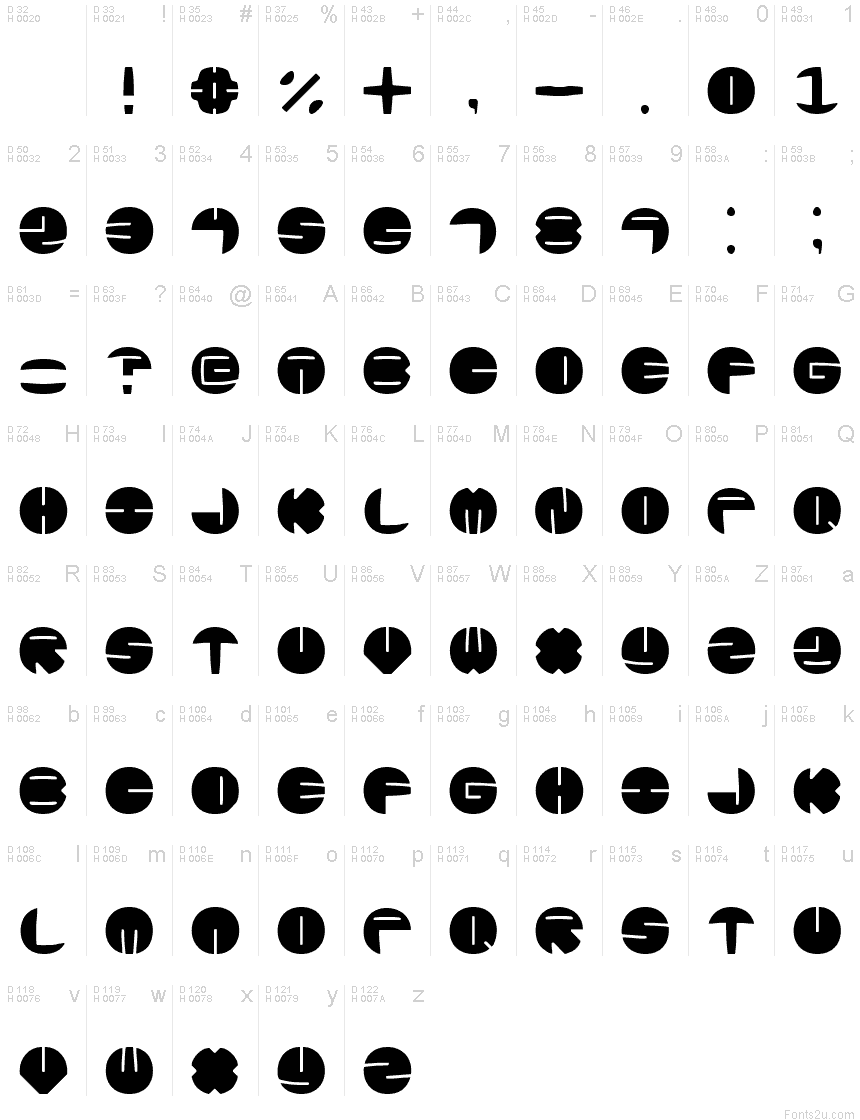
Zurklez Solid (BRK)
Zurklez Solid, by ÆNIGMA FONTS, is a free cartoon display font built from chunky round letters with sharp bite-shaped cuts. The overall feel is playful and slightly oddball, with heavy circular forms interrupted by slits, wedges, and notches that keep the font moving instead of sitting still.
It suits poster titles, kids' event graphics, comic-style cover lines, logo sketches, and short packaging names where a free font with this much bounce can do the talking. Because the letters are so broad and simplified, Zurklez Solid works best in brief display settings, from title cards to big initials, where those carved-out shapes stay clear and characterful.